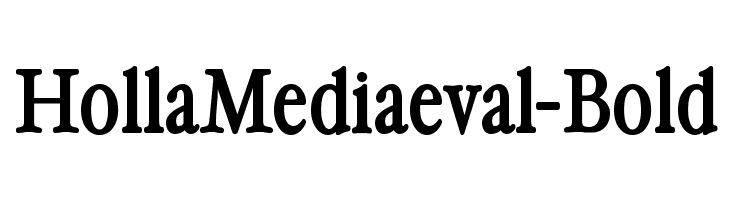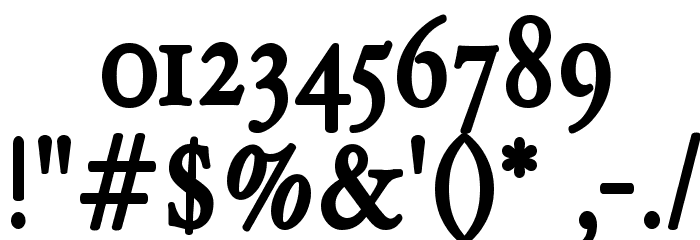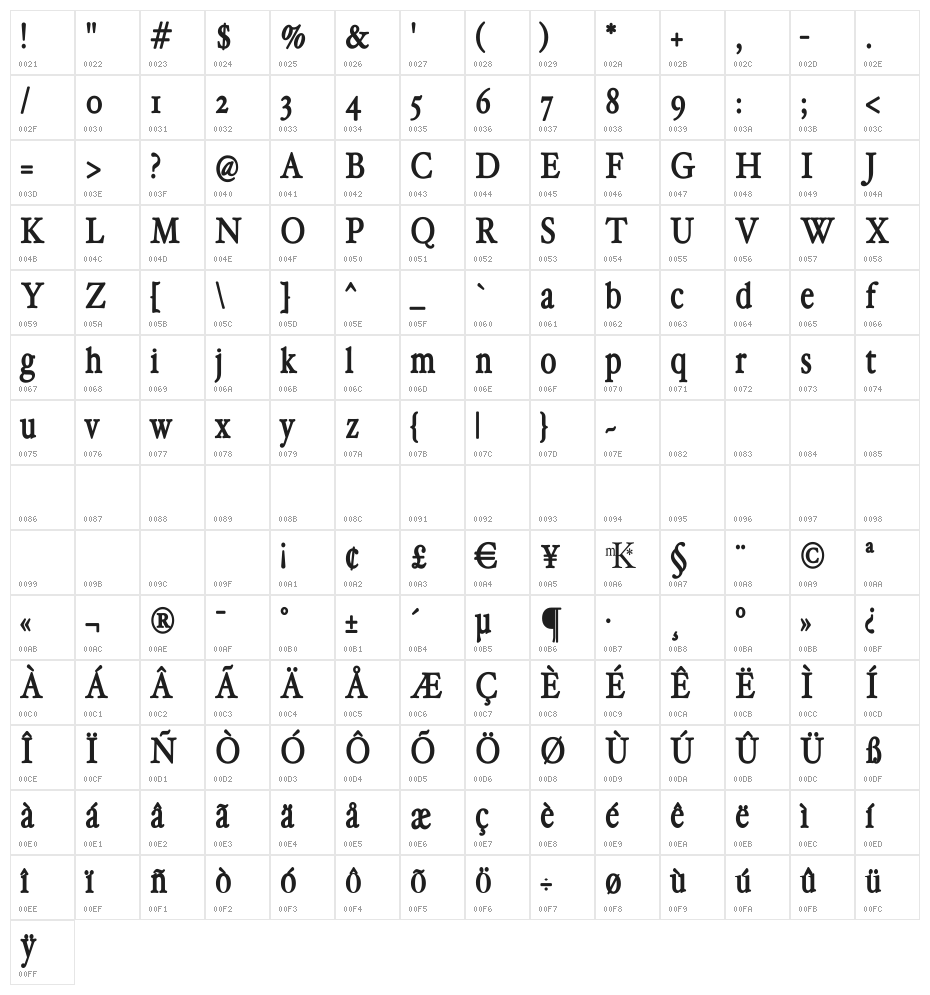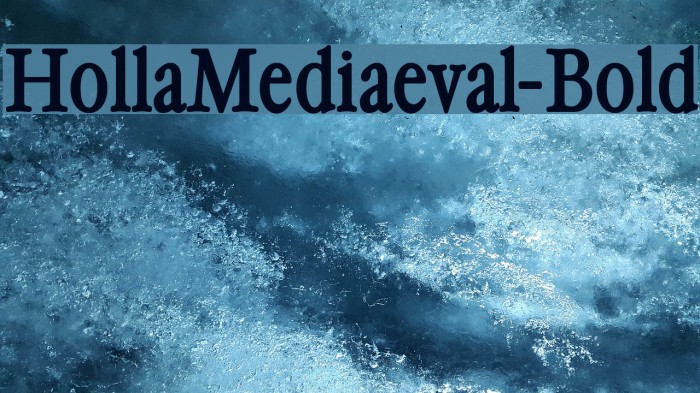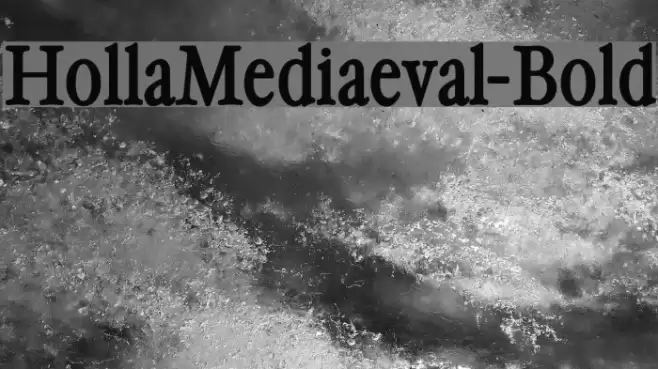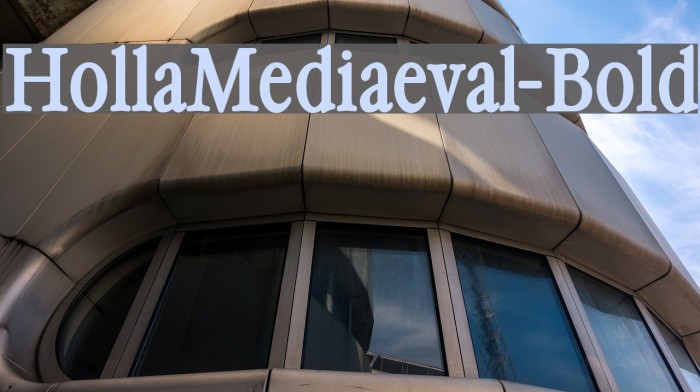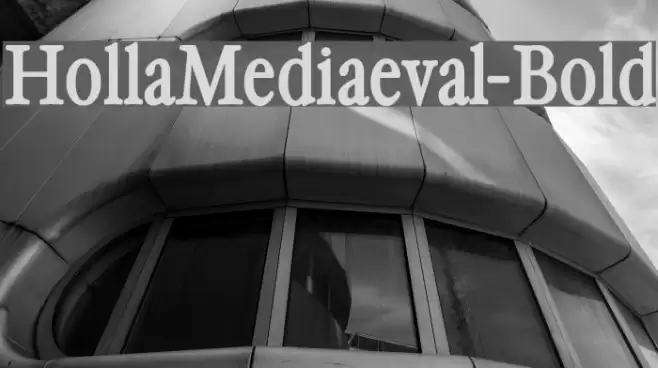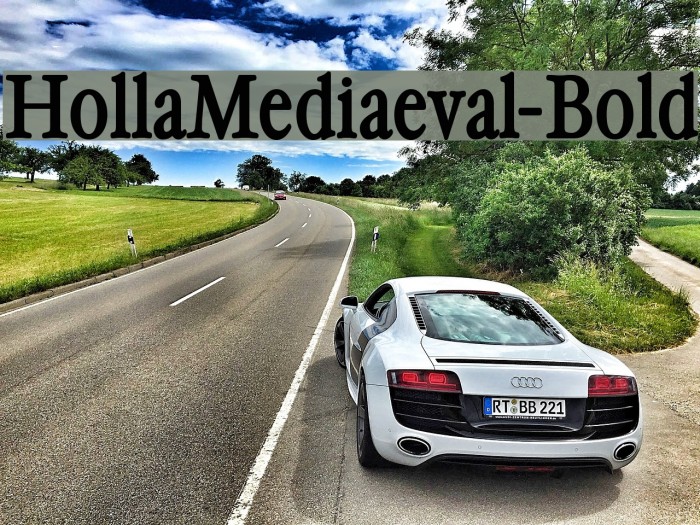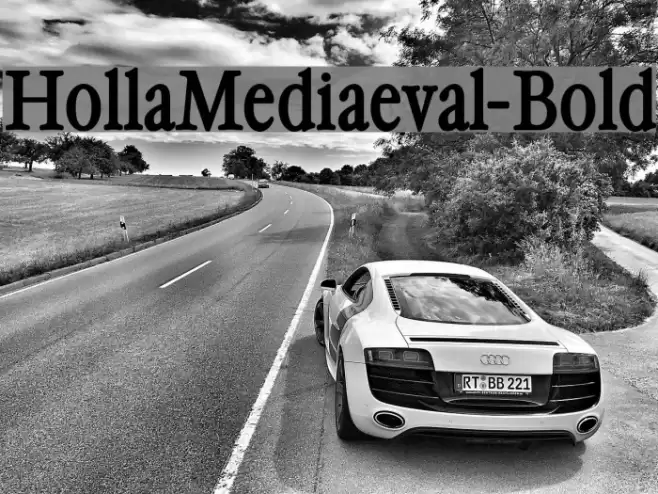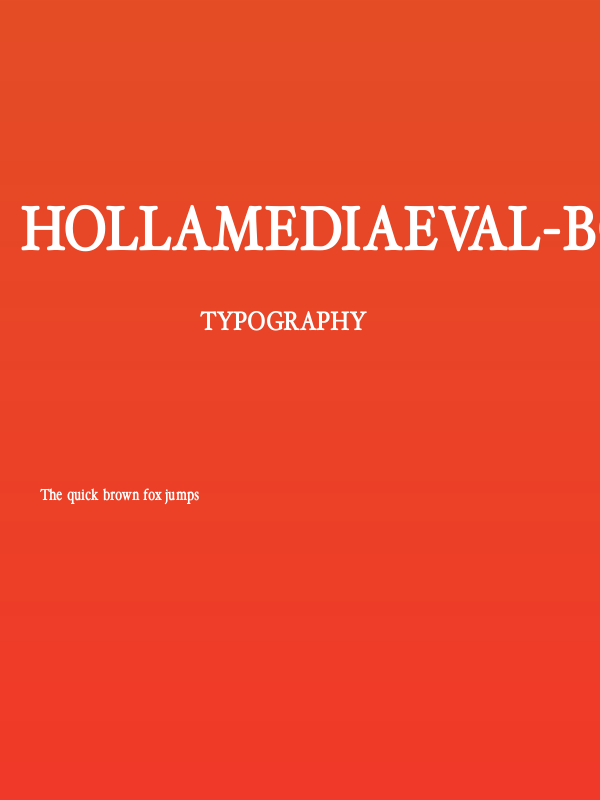
HollaMediaeval-Bold Font
HollaMediaeval-Bold Description
This font exhibits a classic serif style with a bold weight, characterized by its strong, pronounced serifs and a slightly condensed structure. The uppercase letters are robust and commanding, while the lowercase letters maintain a consistent and harmonious flow. The numerals are distinct and clear, ensuring readability. Special characters are elegantly integrated, maintaining the overall aesthetic. The font's design is reminiscent of traditional medieval typefaces, offering a sense of history and sophistication.
| Use Case | Headlines, Logos, Book covers |
| Proposed Projects | Ideal for historical publications, book covers, branding for traditional products, or any project requiring a touch of classic elegance. |